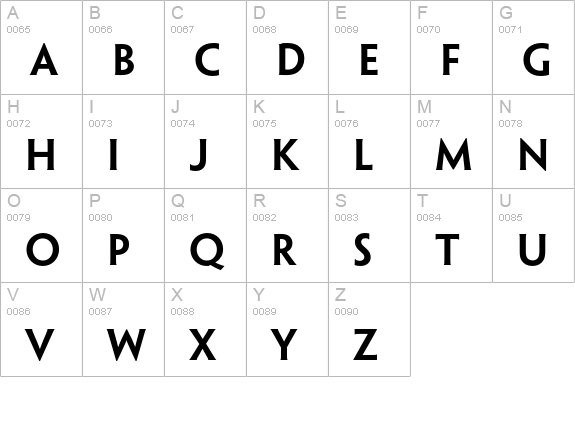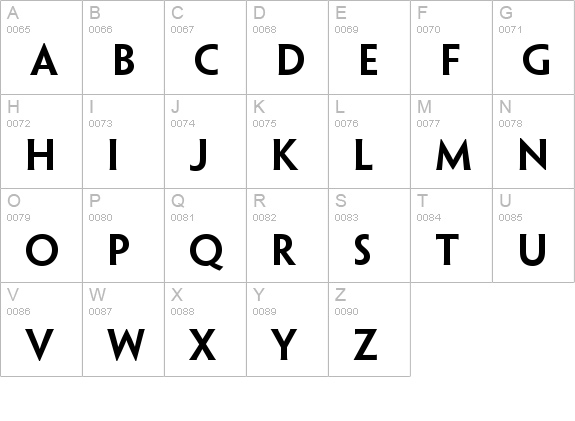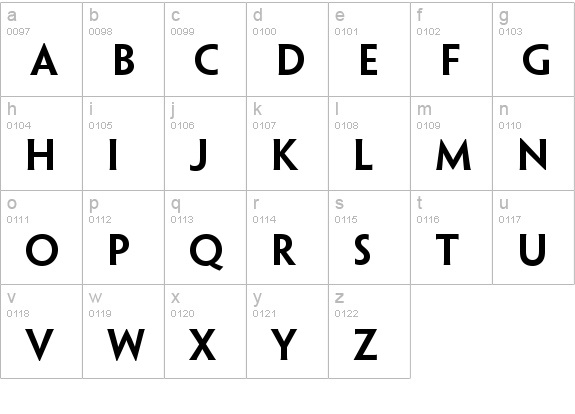
Penumbra Flare Std Semibold is a sub-bold, structured variant in the Penumbra typeface family \xE2\x80\x94 well suited to sub-headlines and emphasised passages.
Penumbra Flare Std Semibold font is a stunning display font that effortlessly combines elegance and boldness. With its strong, yet graceful presence, this font is perfect for creating impactful headlines, striking logos, and captivating designs. The unique design of Penumbra Flare Std Semibold font features clean lines and a modern appearance, making it a versatile choice for both digital and print projects. Its semibold weight adds an extra touch of emphasis and presence, making your message stand out with confidence. One of the best features of Penumbra Flare Std Semibold font is that it is free to use. This means that you can add the elegance and impact of this font to your designs without any cost. It is freely available to download at FontsMarket.com, a trusted source for high-quality fonts. Whether you're a professional designer, a creative enthusiast, or someone looking to add a touch of sophistication to their personal projects, Penumbra Flare Std Semibold font is a must-have. Its timeless beauty and versatility make it a font that will elevate any design and leave a lasting impression on your audience. So, why wait? Download Penumbra Flare Std Semibold font today from FontsMarket.com and unlock the power of elegance and boldness for your next project.